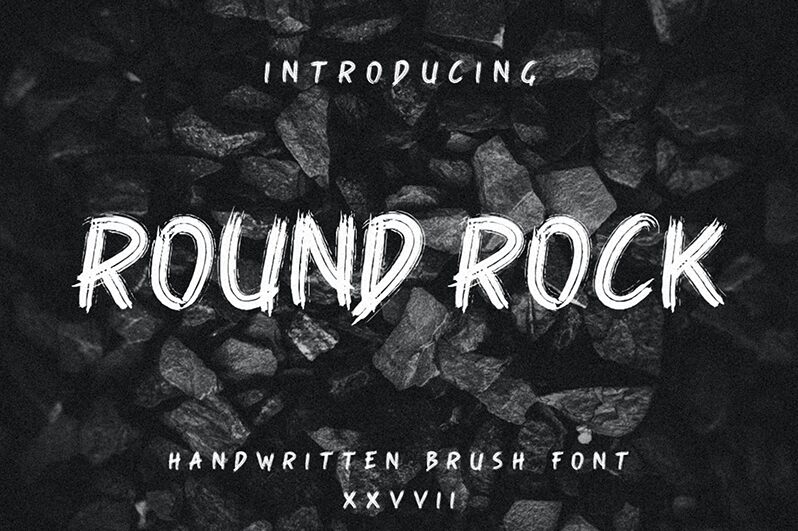
Round Rock
Round Rock, designed by Typegoals Labs, is a semi-bold trash script font that exudes an untamed energy with its rough and ready aesthetic. The deliberate imperfections and seemingly haphazard strokes give it a raw, grunge-inspired look that is both striking and expressive. This typeface captures the essence of rebellious creativity, making it perfect for projects that aim to stand out with an edgy, unconventional flair.
The font's distinctive trash style is characterized by its unique brush-like quality and textural depth. Each letter appears to be crafted with a spontaneous brush stroke, lending an organic feel to the overall design. The semi-bold weight of Round Rock ensures that it makes a solid impression without overwhelming the viewer.
Ideal for music industry graphics, band logos, urban fashion labels, and any artistic endeavor that seeks to break from the norm, Round Rock offers designers a chance to inject personality and attitude into their work. Its versatility in conveying motion and emotion makes it a go-to choice for those looking to push boundaries in visual communication.